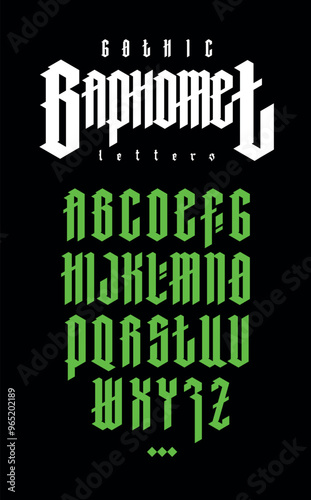
Gothic style alphabet. Vector. Letters and symbols on a black background. Calligraphy with a green marker. Medieval latin letters. Elegant font for tattoos. Ancient Germanic style.